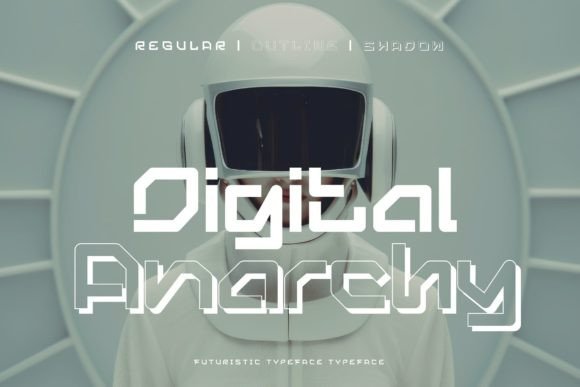
Digital Anarchy: A Typographic Revelation for the Digital Frontier
Journey into the realm of innovation with Digital Anarchy, a display font family born from the fusion of sleek design and cutting-edge aesthetics. This visionary typeface transcends the boundaries of conventional typography, embodying the essence of a world where technology reigns supreme. Designed with the future in mind, Digital Anarchy is the ultimate choice for projects that push the limits of creativity and redefine the norms.
With its razor-sharp edges and a design that gazes into the digital horizon, Digital Anarchy commands attention. Its lines dance like pixels on a screen, creating a visual spectacle that captures the imagination. Whether you're crafting a futuristic game interface, developing an innovative app, or simply seeking to infuse your designs with a forward-thinking edge, Digital Anarchy is the key to unlocking a world of possibilities.
Unleash your inner visionary and let Digital Anarchy guide you to new heights of creativity. Step into a realm where technology and art converge, where boundaries are shattered, and where your ideas take on a life of their own. Embrace the chaos of Digital Anarchy, and design the future of typography.
- Awe-inspiring design that embodies the essence of the digital age
- Razor-sharp edges and a futuristic aesthetic
- Perfect for visionary projects that aim to break boundaries
- Ideal for game interfaces, innovative apps, and forward-thinking designs
Stand out in the digital landscape with Digital Anarchy. Let your creativity run wild and design the future, one letter at a time.